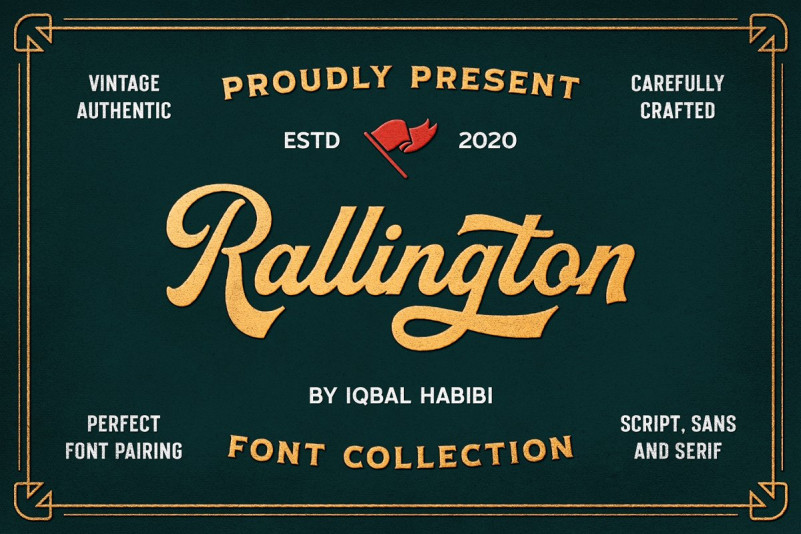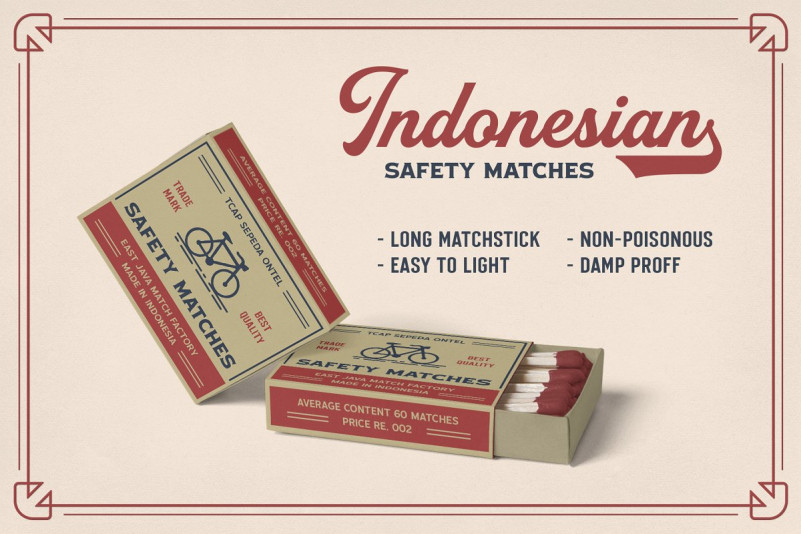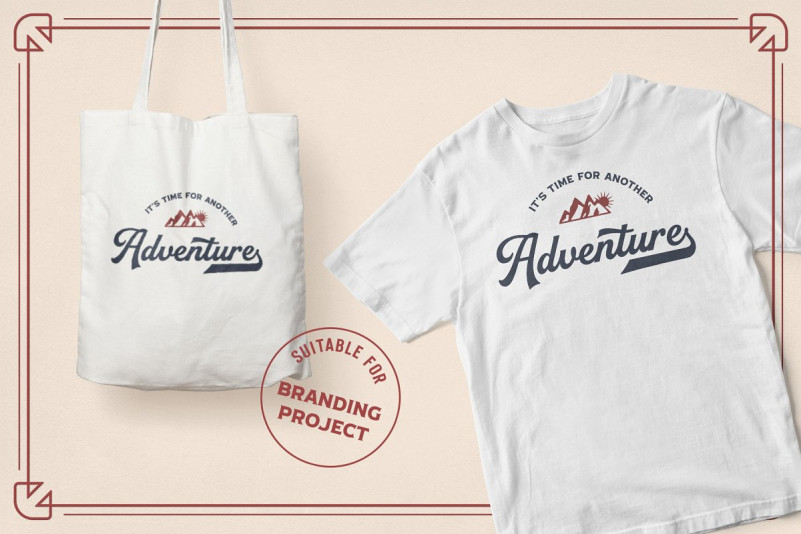
Rallington Font
Rallington Font Collection is inspired by vintage lettering works, such as beer label design, vintage print advertisement, matchbox design, etc. This font comes with 4 Fonts. You can create a great combination with these fonts, like to create label design, signage, logotype, t-shirt and many more.